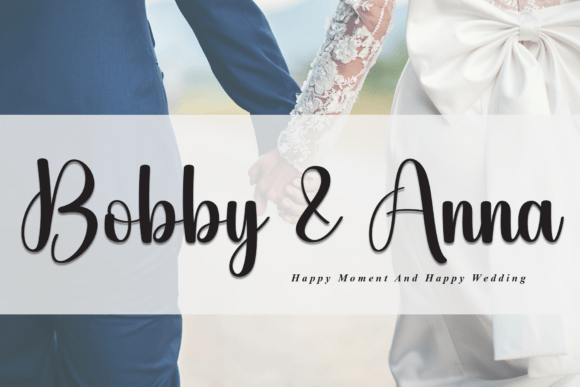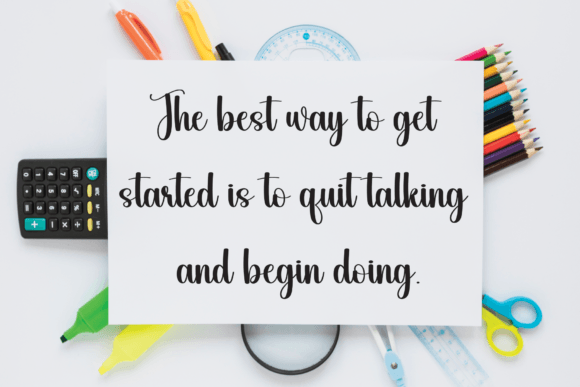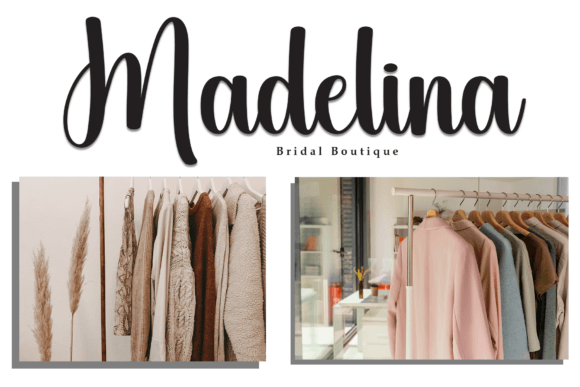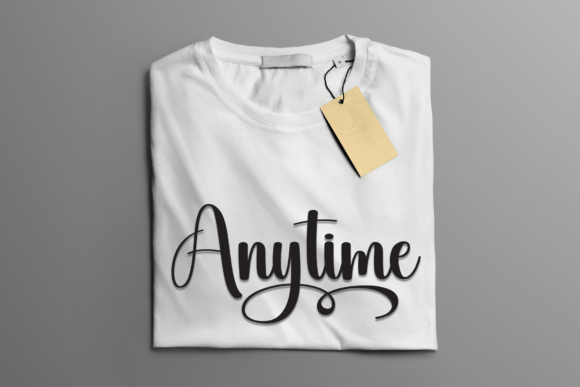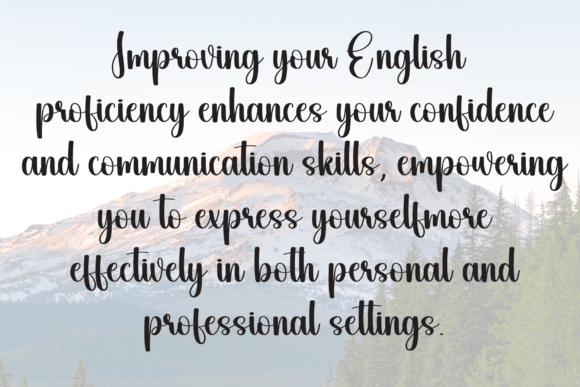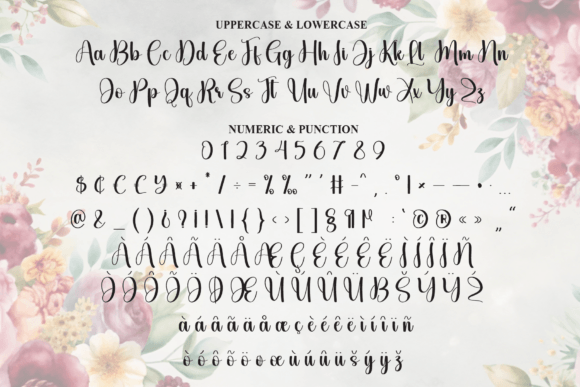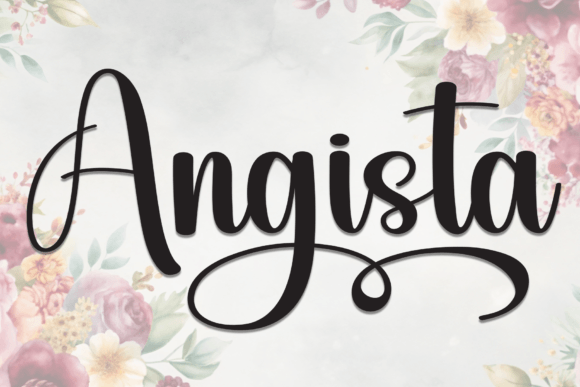
Introducing Angista Font: A Bold and Artistic Handwritten Font
Are you tired of using the same old fonts in your designs? Do you want to add a personal and artistic touch to your projects? Look no further than Angista Font, a bold, handwritten font that features strong, expressive letterforms. In this article, we’ll take a closer look at Angista Font, its unique style, and how it can elevate your designs.
What is Angista Font?
Angista Font is a bold, handwritten font designed to make a statement. Its unique style is characterized by strong, expressive letterforms that add a personal and artistic touch to any design. The font features a distinctive, hand-crafted look that’s perfect for headlines, posters, logos, and any other design project that requires a bold and eye-catching font.
Key Features of Angista Font
- Bold and Expressive Letterforms: Angista Font features bold, expressive letterforms that are designed to make a statement.
- Handwritten Style: The font has a distinctive, hand-crafted look that’s perfect for adding a personal touch to your designs.
- Unique Style: Angista Font has a unique style that sets it apart from other fonts, making it perfect for designers who want to stand out from the crowd.
- Versatile: The font is versatile and can be used for a variety of design projects, including headlines, posters, logos, and more.
Why Use Angista Font?
So, why should you use Angista Font in your designs? Here are just a few reasons:
- Adds a Personal Touch: Angista Font adds a personal and artistic touch to your designs, making them more engaging and memorable.
- Perfect for Headlines and Posters: The font is perfect for headlines and posters, where you want to grab the attention of your audience.
- Great for Logos: Angista Font is also great for logos, where you want to create a bold and memorable brand identity.
- Easily Readable: Despite its bold style, Angista Font is easily readable, making it perfect for designs where you want to convey a message quickly and effectively.
How to Use Angista Font
Using Angista Font is easy. Here are a few tips to get you started:
- Use it for Headlines: Use Angista Font for headlines and titles, where you want to grab the attention of your audience.
- Pair it with Other Fonts: Pair Angista Font with other fonts to create a unique and interesting design.
- Experiment with Colors: Experiment with different colors to find the perfect combination that works with your design.
- Use it for Logos: Use Angista Font to create a bold and memorable logo that stands out from the crowd.
If you’re a designer or crafter, here are a few tips for using Angista Font in your projects:
- Use it to Add Emphasis: Use Angista Font to add emphasis to certain words or phrases in your design.
- Create a Focal Point: Use Angista Font to create a focal point in your design, drawing the attention of your audience to a specific area.
- Experiment with Different Sizes: Experiment with different sizes to find the perfect size that works with your design.
- Have Fun: Most importantly, have fun with Angista Font! Experiment with different styles and techniques to find the perfect look for your design.
In conclusion, Angista Font is a bold, handwritten font that features strong, expressive letterforms. Its unique style adds a personal and artistic touch to any design, making it perfect for headlines, posters, logos, and more. With its versatility, readability, and bold style, Angista Font is a great addition to any design project. So why not give it a try and see how it can elevate your designs?